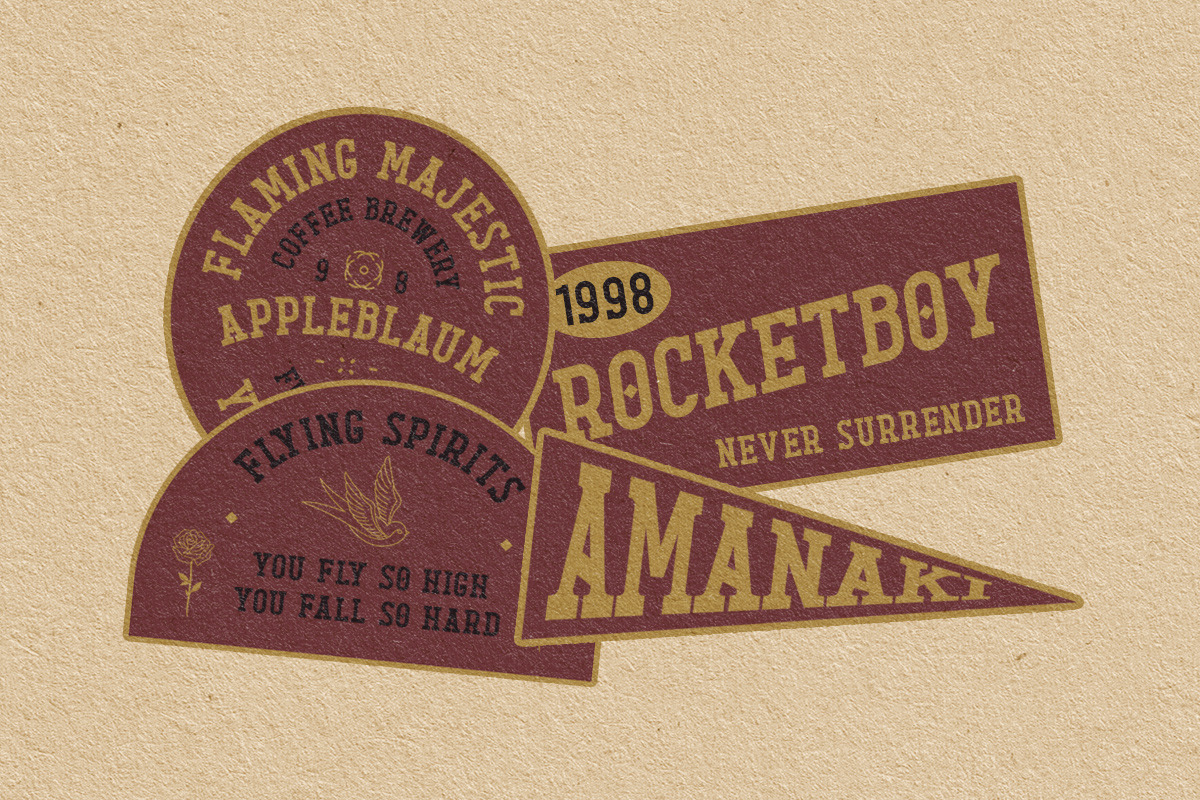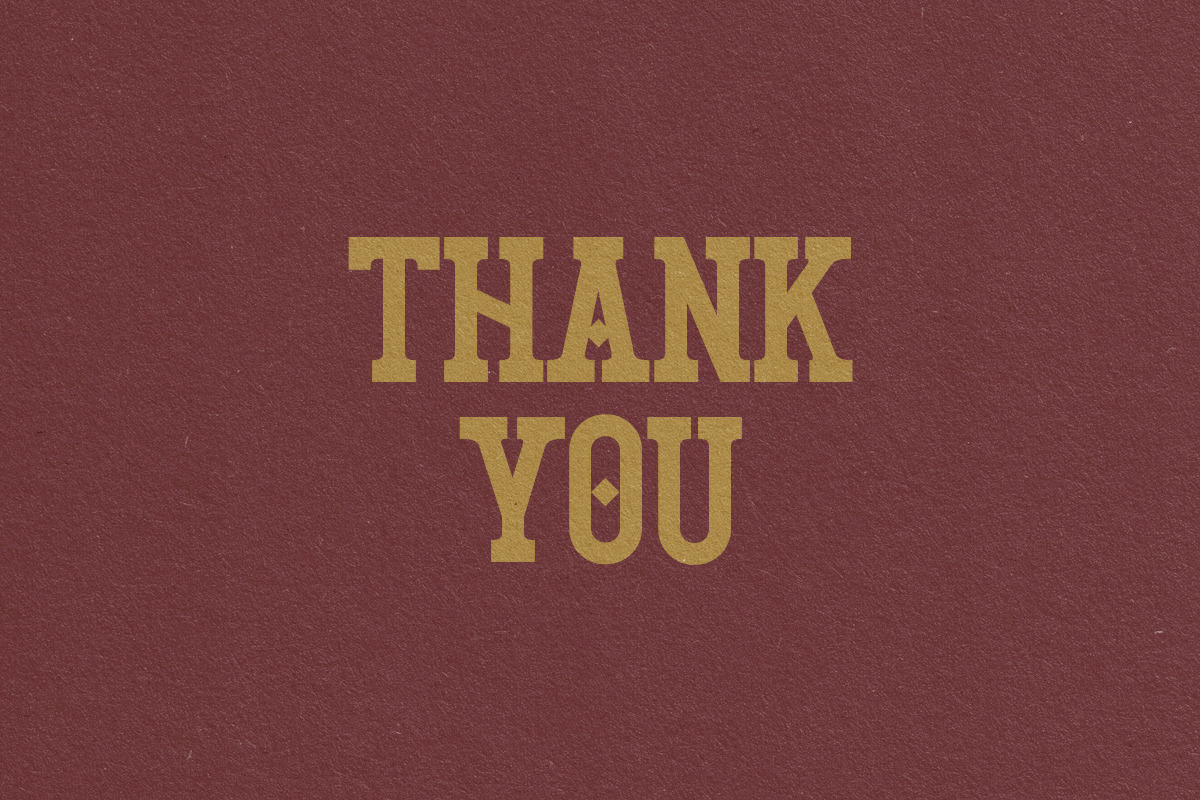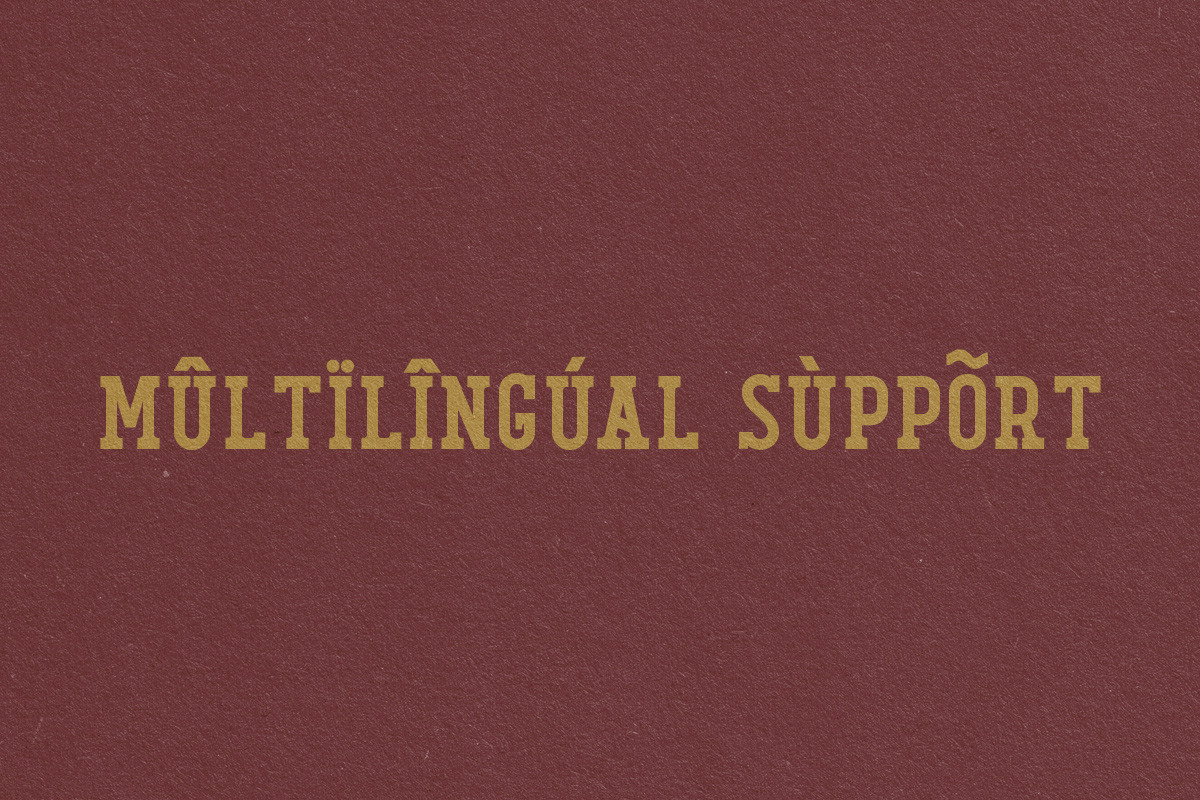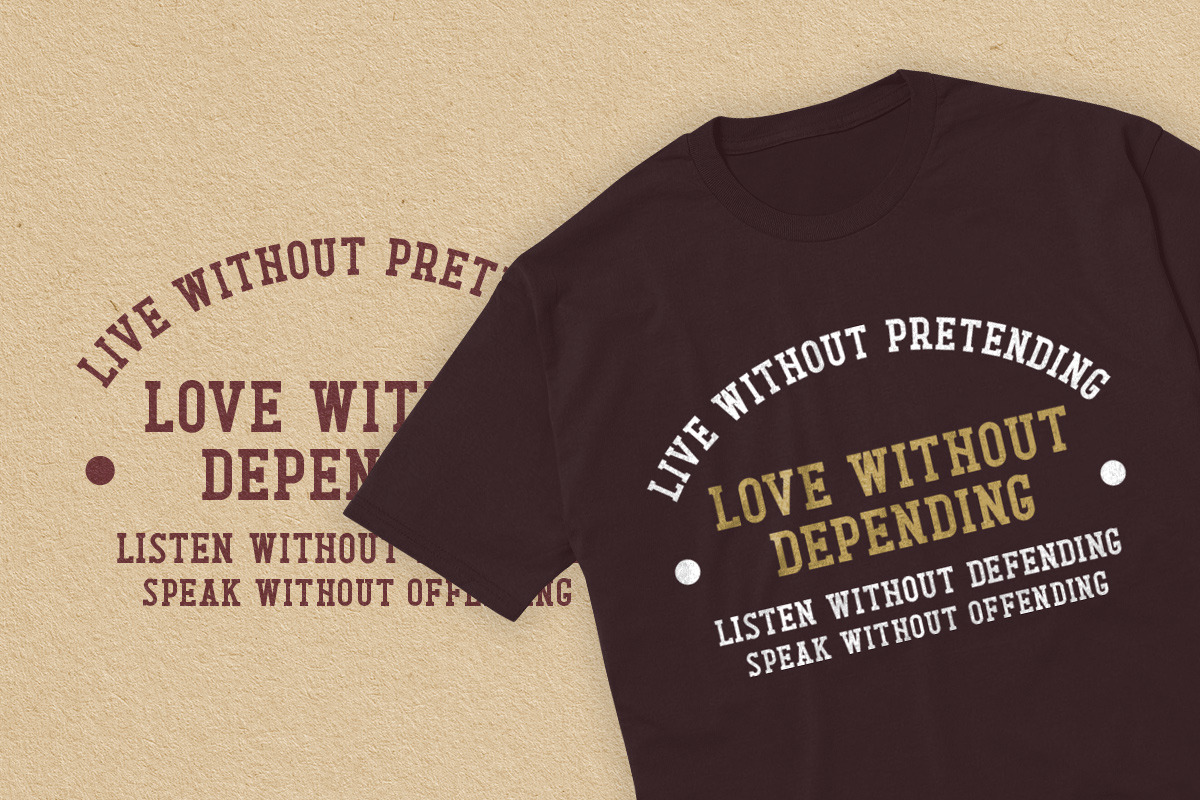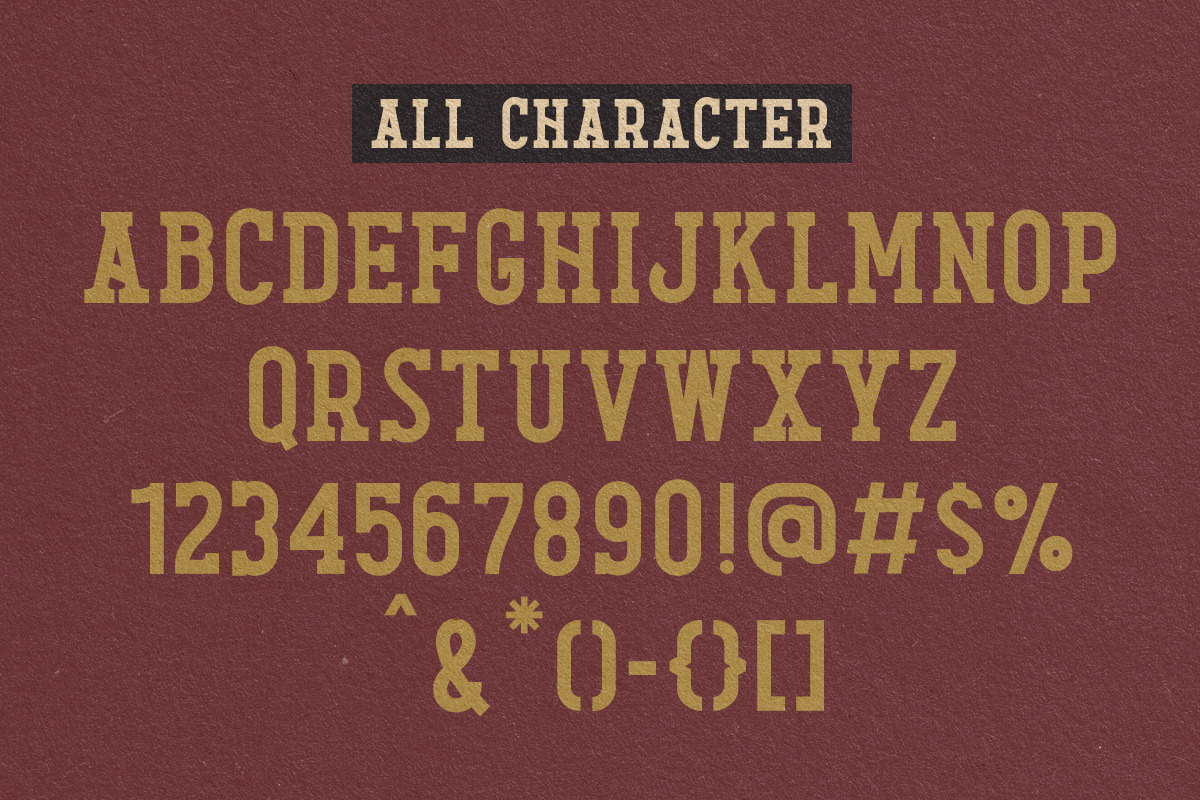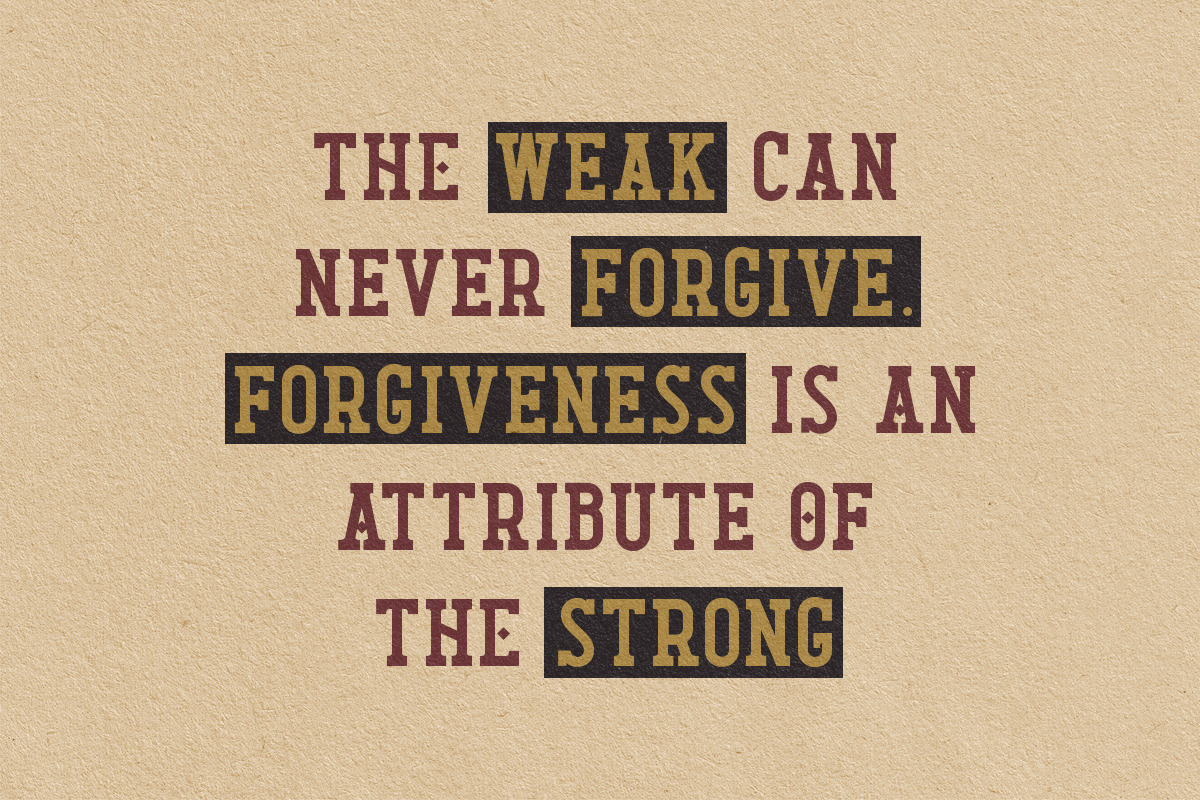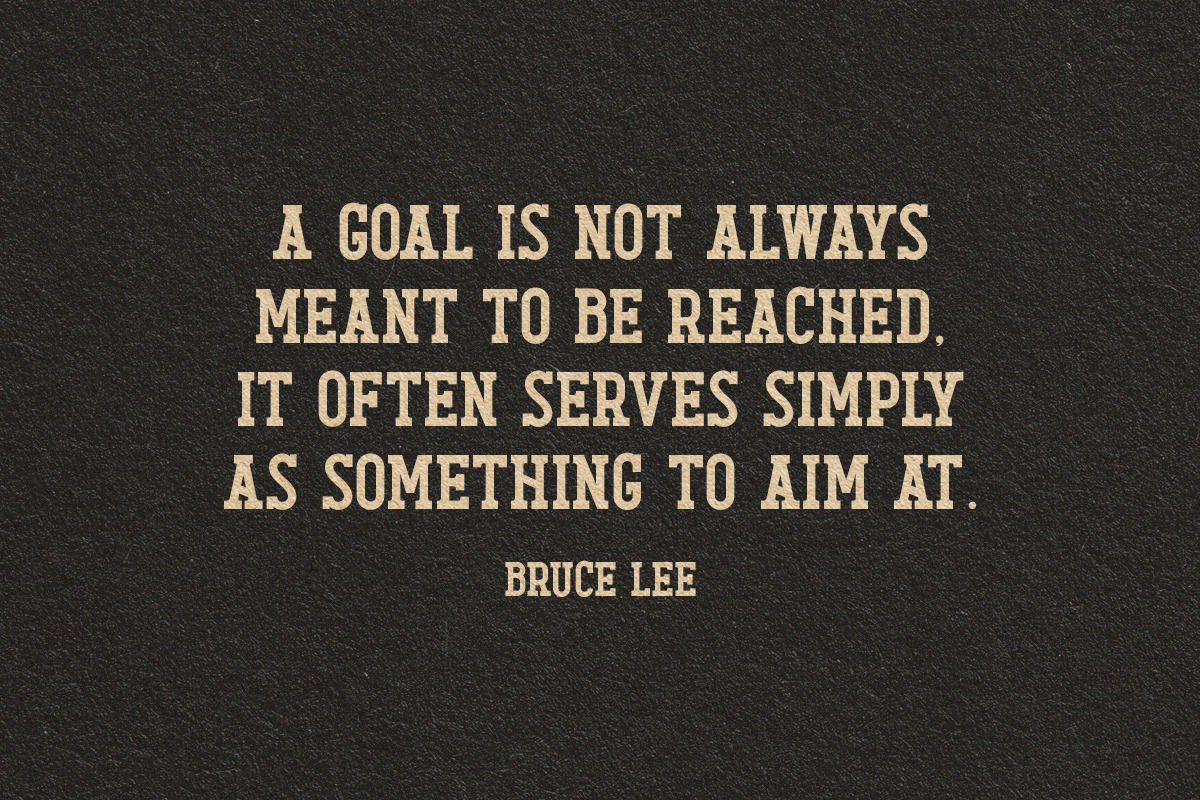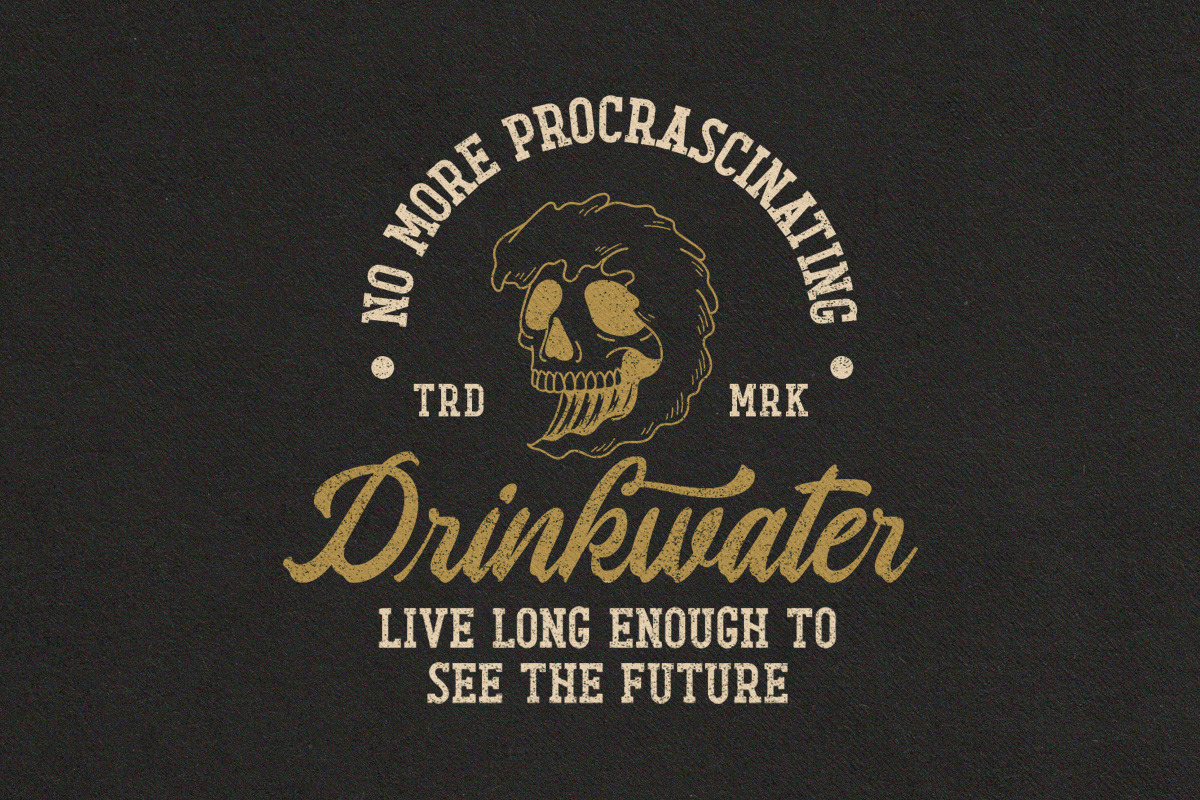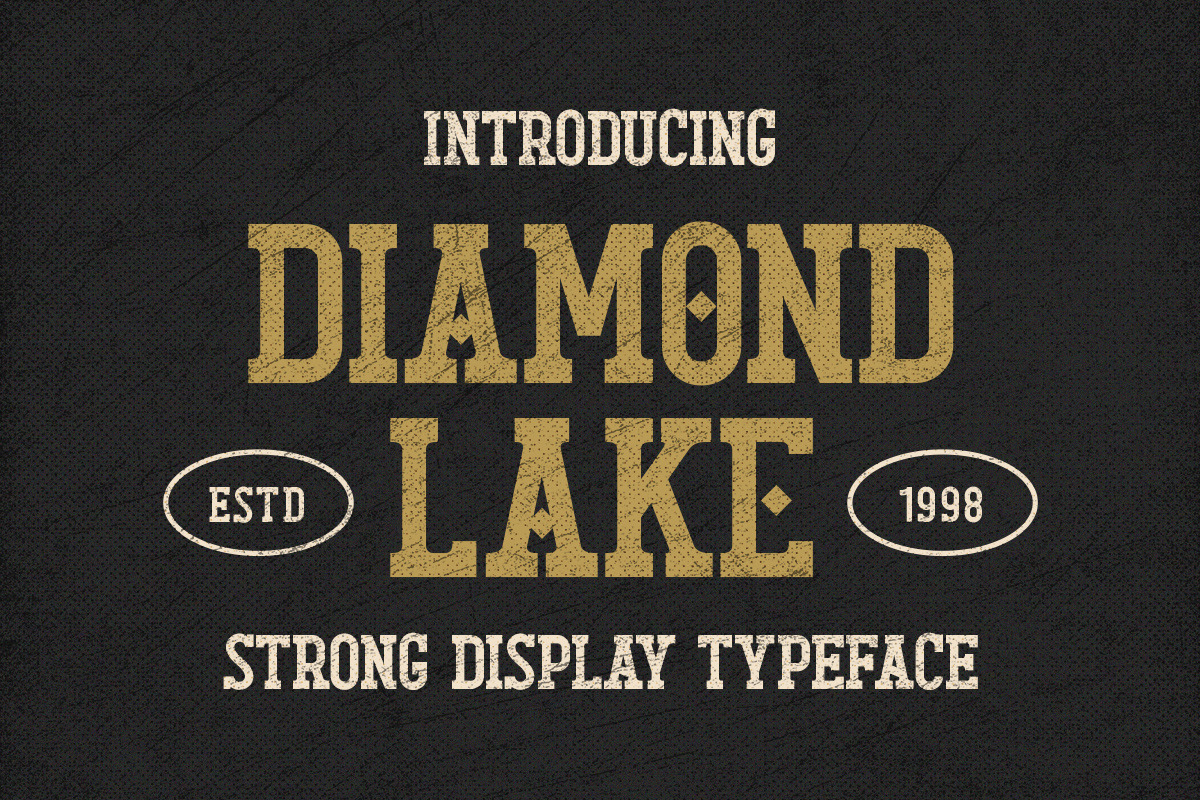
Diamond Lake - Display Typeface
Introducing, Diamond lake! This font have strong and bold charasteristics that will make your design more standout from the others. this font is perfect for magazine, headline, packaging, branding, logotype, badge,book, etc.